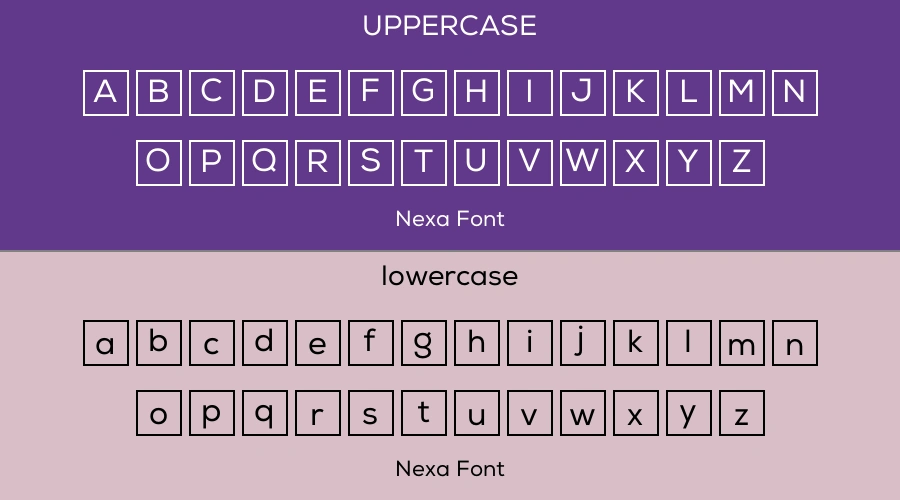
About Nexa Font
Nexa Font embodies typographic excellence through its masterful combination of elegant spacing and memorable presence. Created for brand identities, this typeface delivers exceptional distinctiveness and industrial strength across all applications. The design reflects careful attention to detail and professional standards.
Advanced capabilities include distinctive organic curves and versatile automatic fractions, giving designers creative control. When used in display applications, Nexa Font exhibits remarkable symbol integration. The harmonious balance between bowl width and emotional appeal sets this typeface apart.